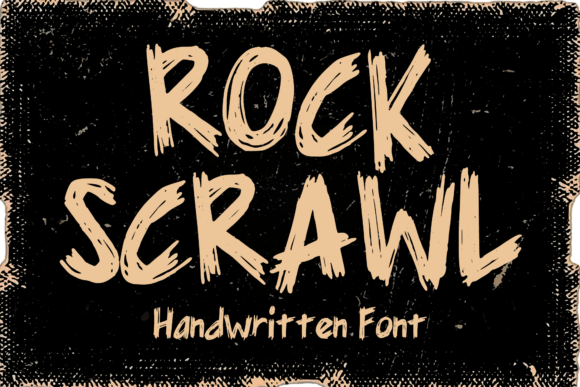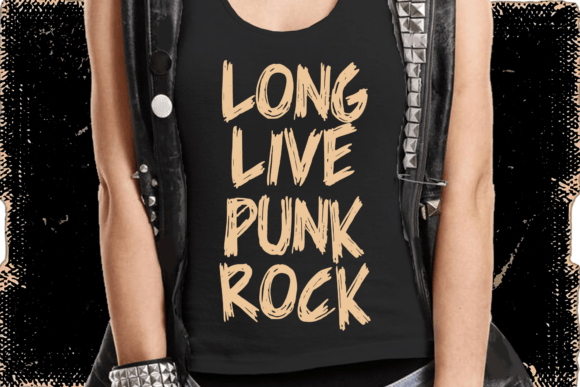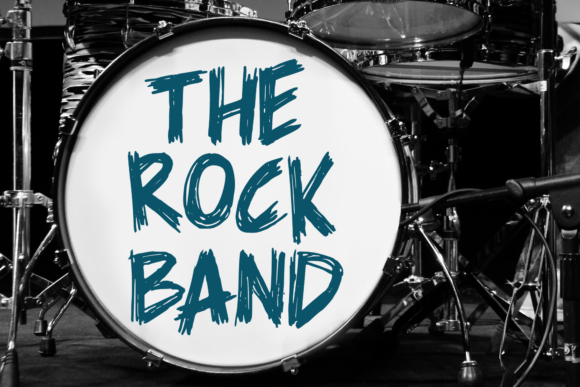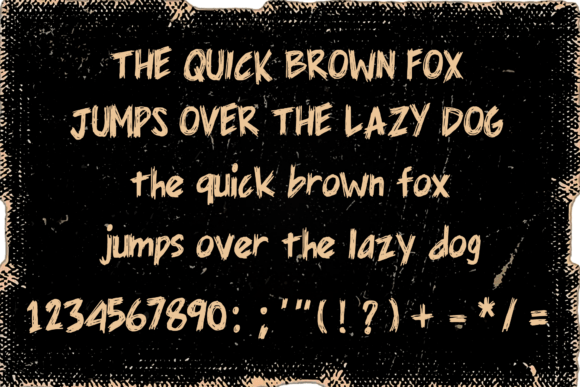
Rock Scrawl Font: Grunge Display Typography for Bold Designs!
About the Rock Scrawl Font
Explore the possibilities with Rock Scrawl Font, a font that offers both beauty and functionality. Rock Scrawl is a cool grunge and rock band display font. Rock Scrawl is great for creating cool designs that scream for attention: it’s ideal for movie posters, music posters, single covers, t-shirt designs, stickers, clothing, merchandise, and more. Fall in love with its incredibly cool style, and use it to create lovely designs!
Rock Scrawl’s strong, high-contrast forms make it perfect for headlines, posters, and branding projects needing a bold, rebellious statement. It excels in short impactful text, conveying energy and attitude. However, its highly stylized nature makes it unsuitable for body copy or UI elements where readability is paramount. Avoid using it for long paragraphs or small sizes.
This font’s raw energy pairs well with clean sans-serifs like Open Sans or Montserrat for a balanced contrast. For a more cohesive, grunge aesthetic, consider pairing it with a rough-hewn serif like Playfair Display or a distressed script font. Alternatively, a geometric sans-serif could create a striking juxtaposition.
Rock Scrawl projects a raw, rebellious personality, ideal for brands focused on music, streetwear, or alternative culture. Its gritty texture and bold strokes immediately communicate a sense of urgency and unconventionality.
Rock Scrawl Font Usage Examples
Rock Scrawl Font Example